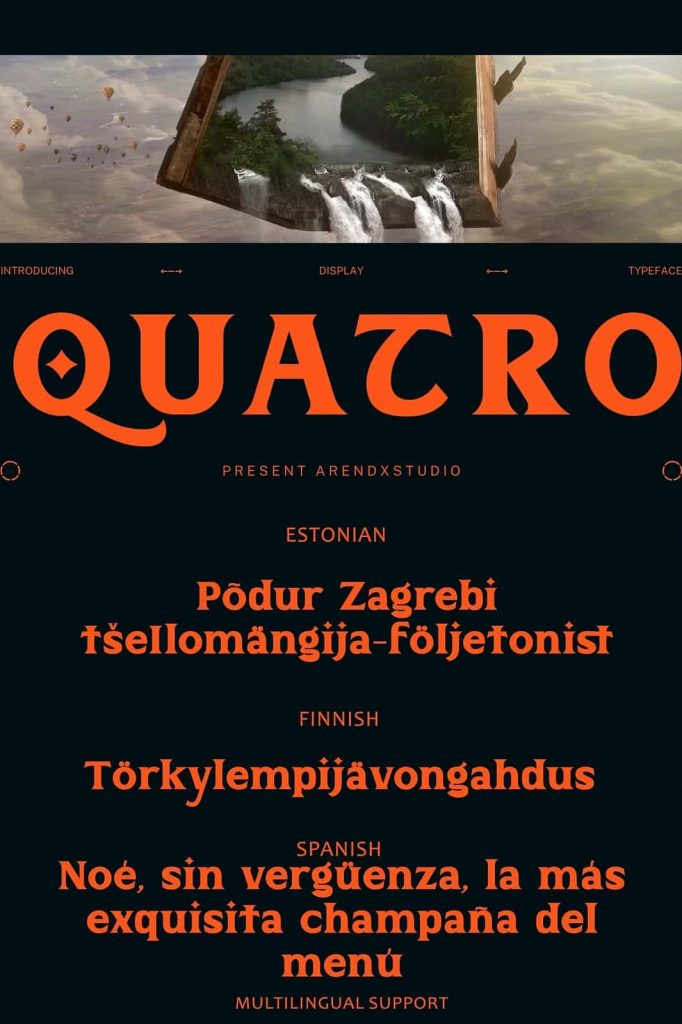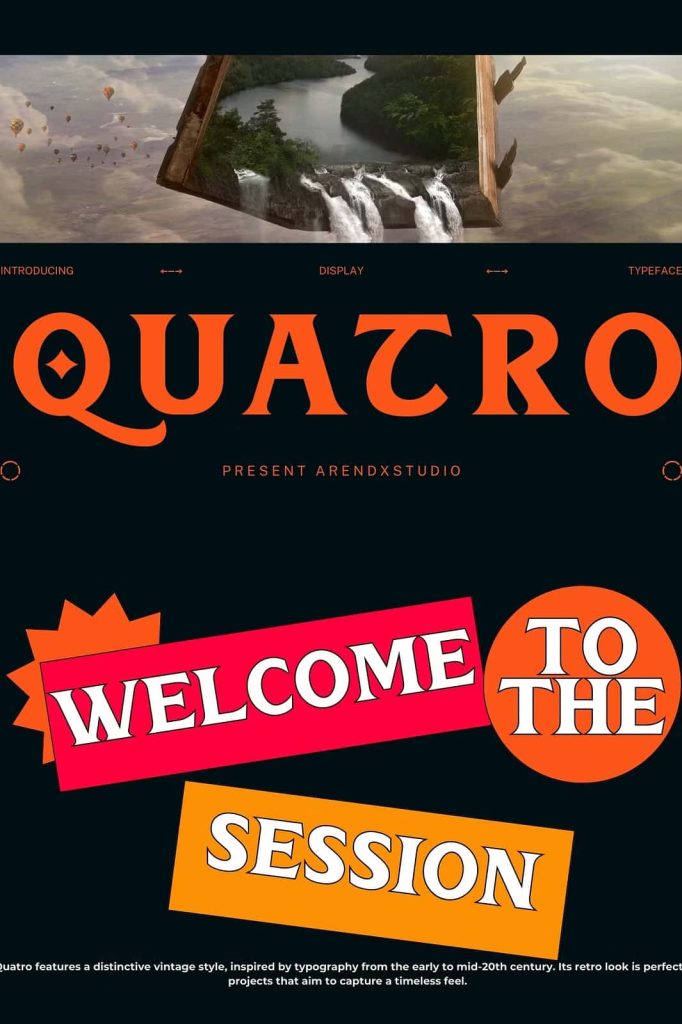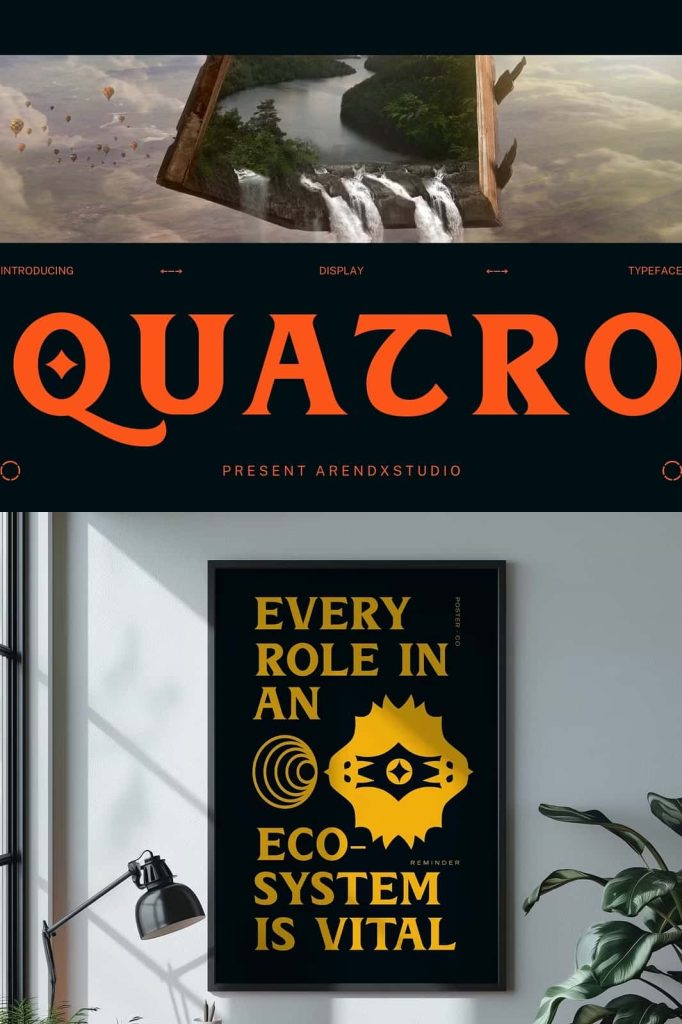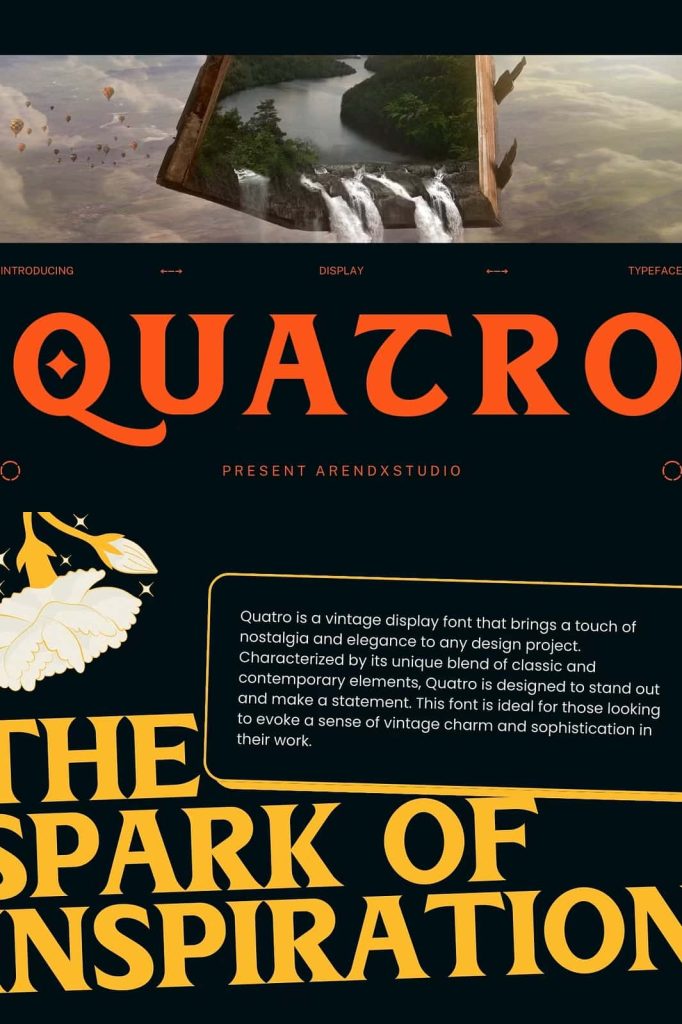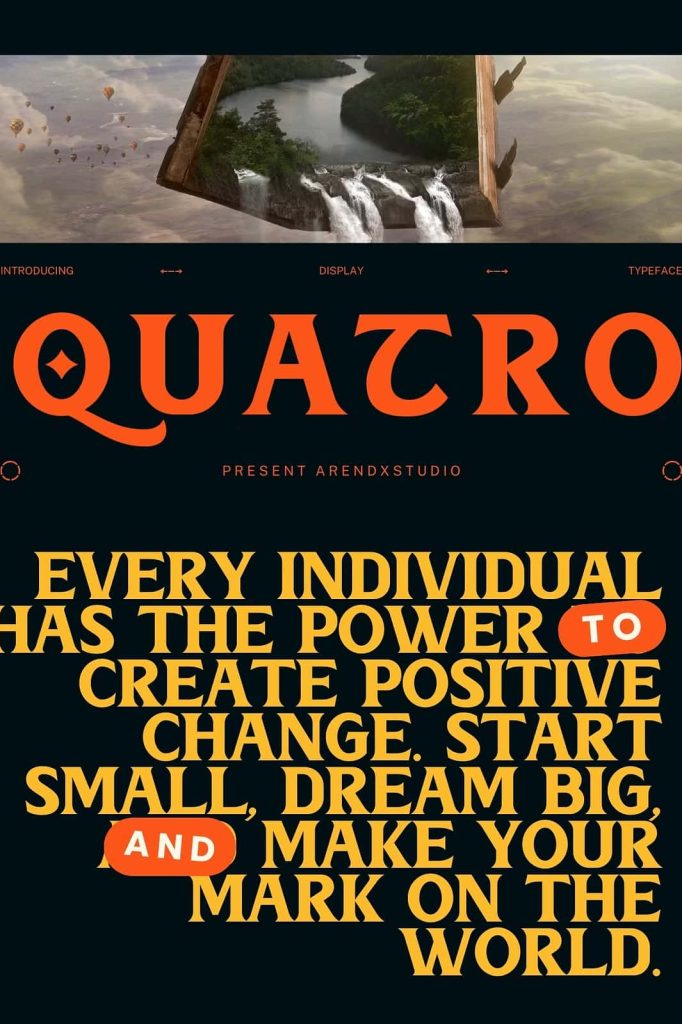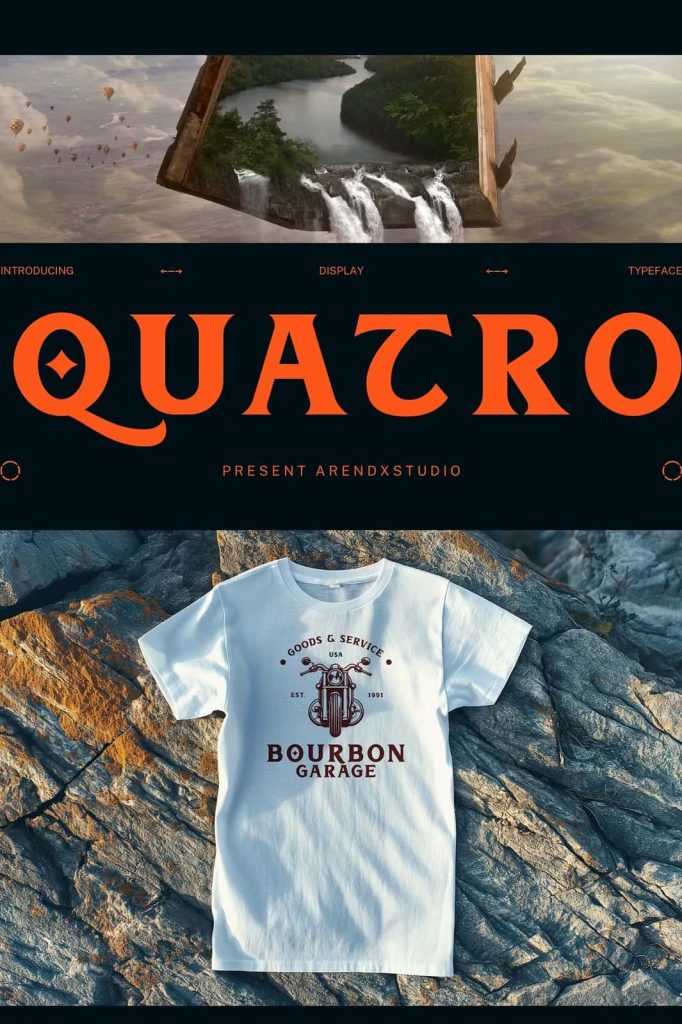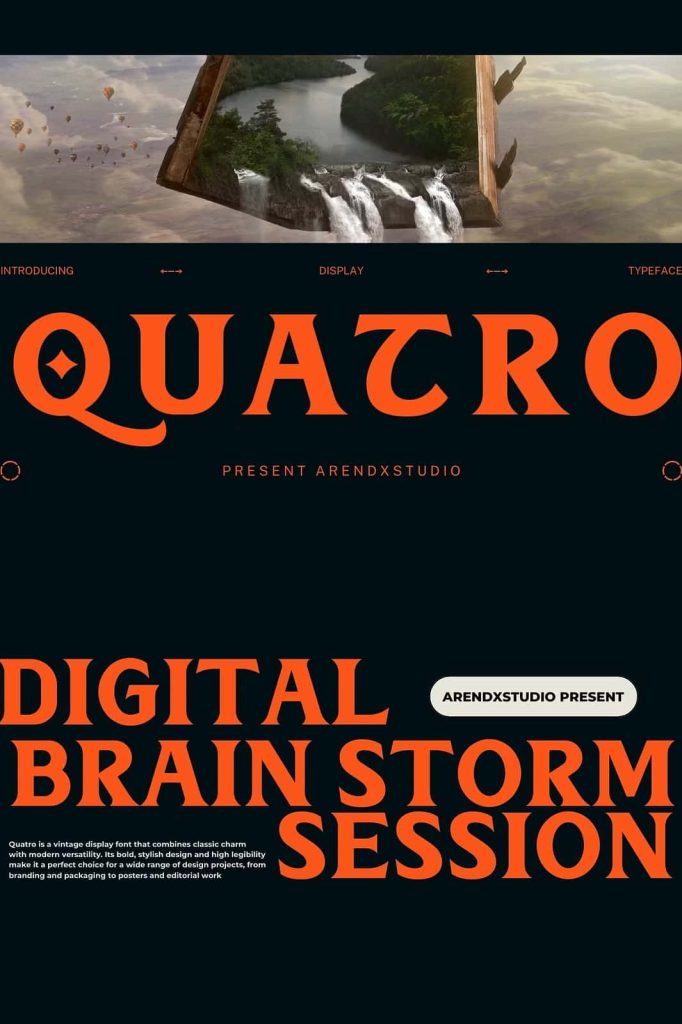
Quatro is a vintage display font that brings a touch of nostalgia and elegance to any design project. Characterized by its unique blend of classic and contemporary elements, Quatro is designed to stand out and make a statement. This font is ideal for those looking to evoke a sense of vintage charm and sophistication in their work.